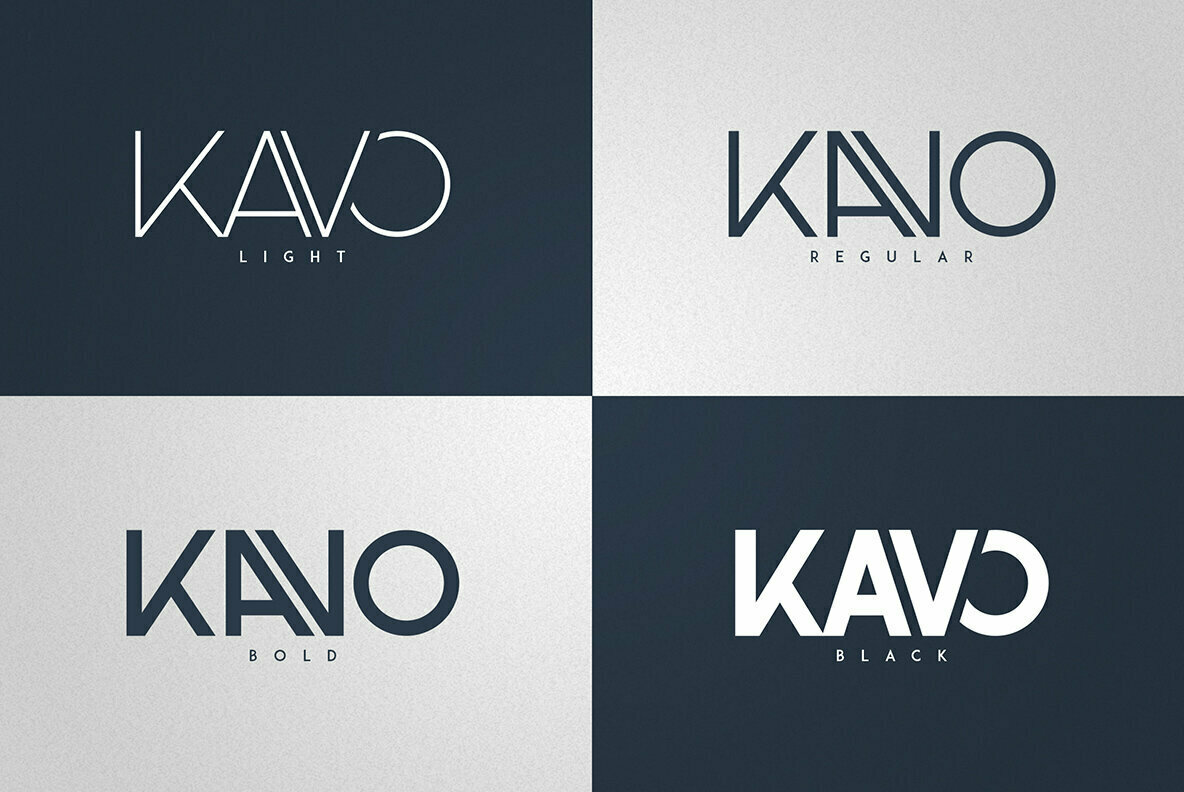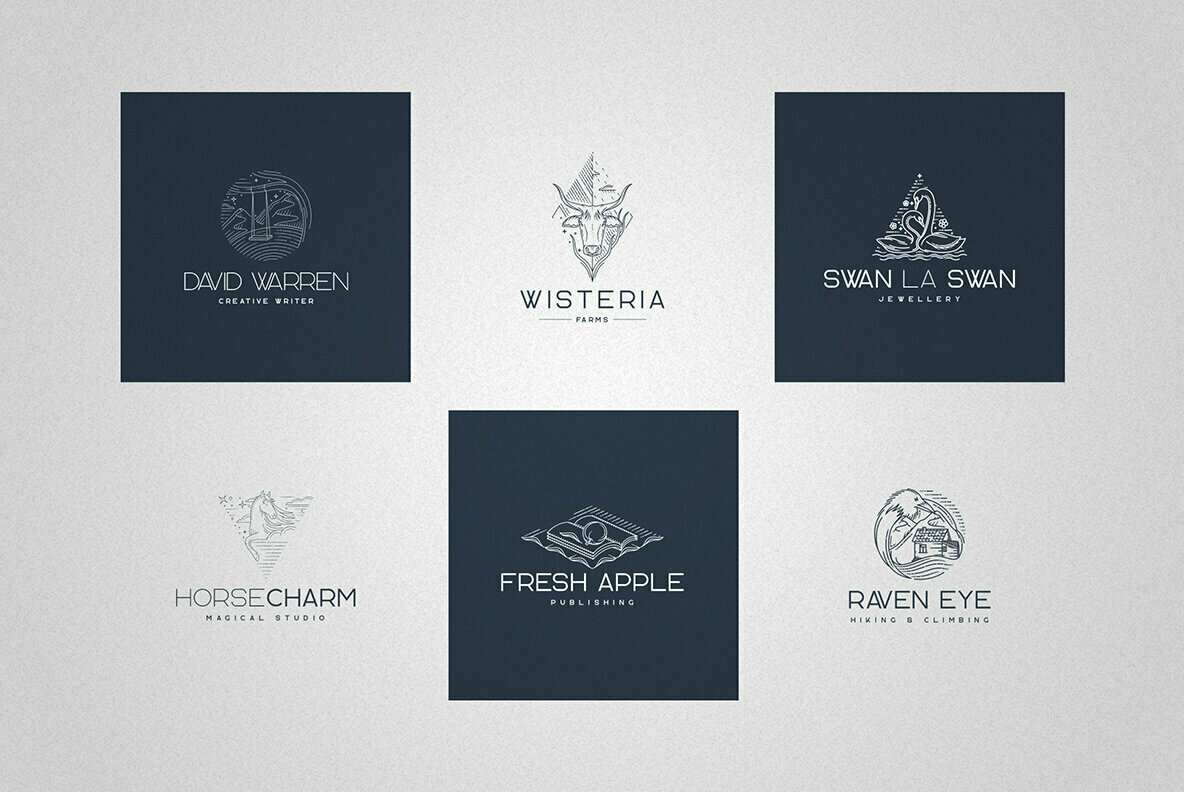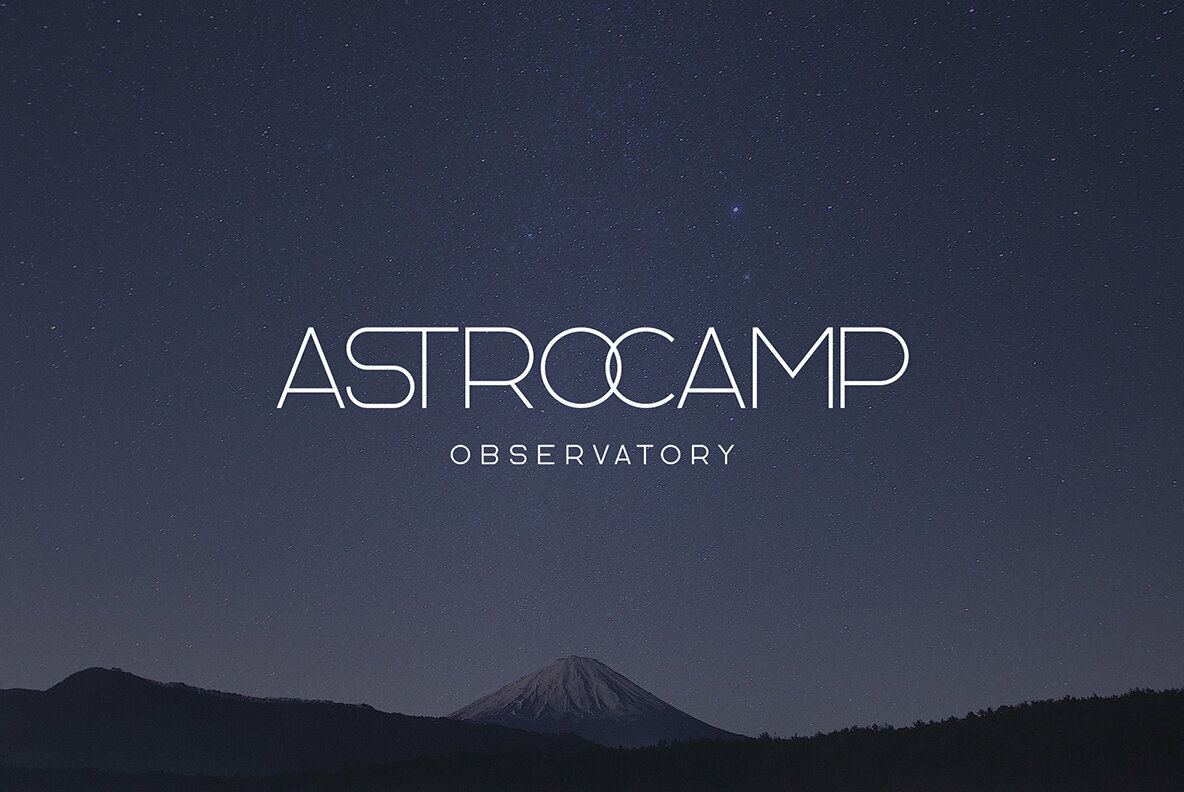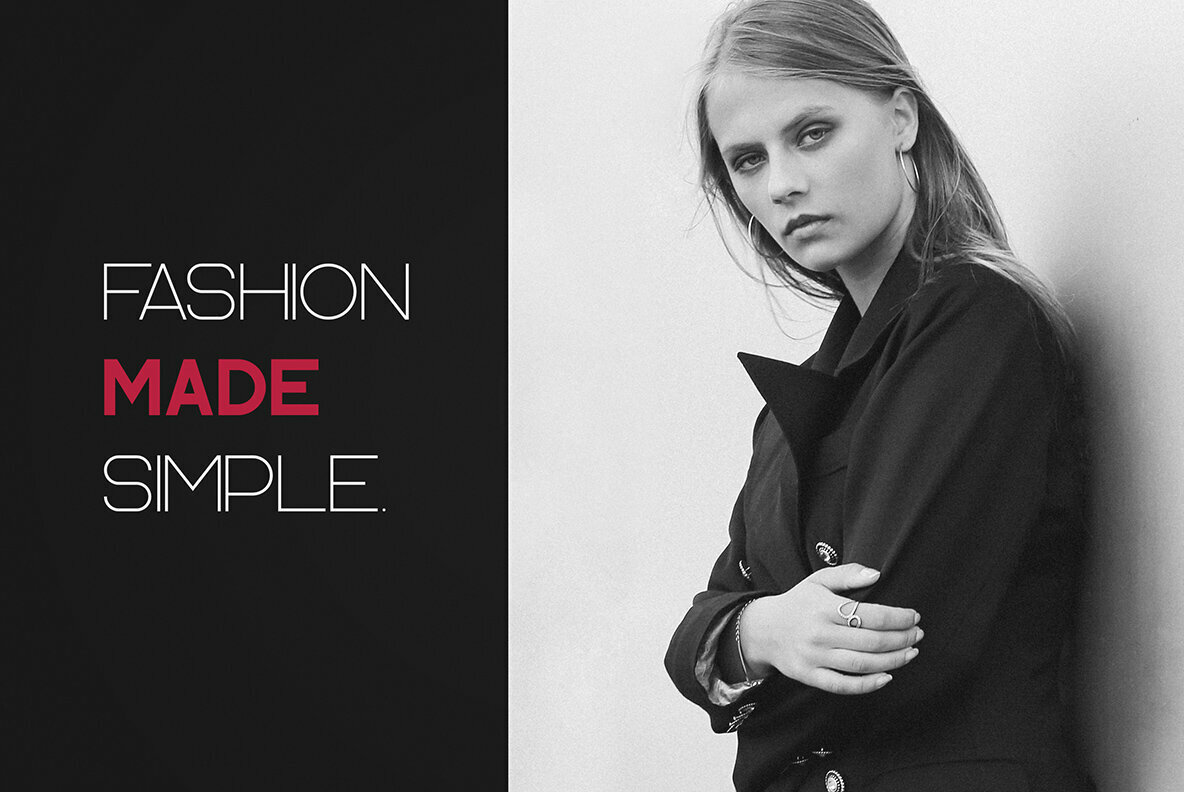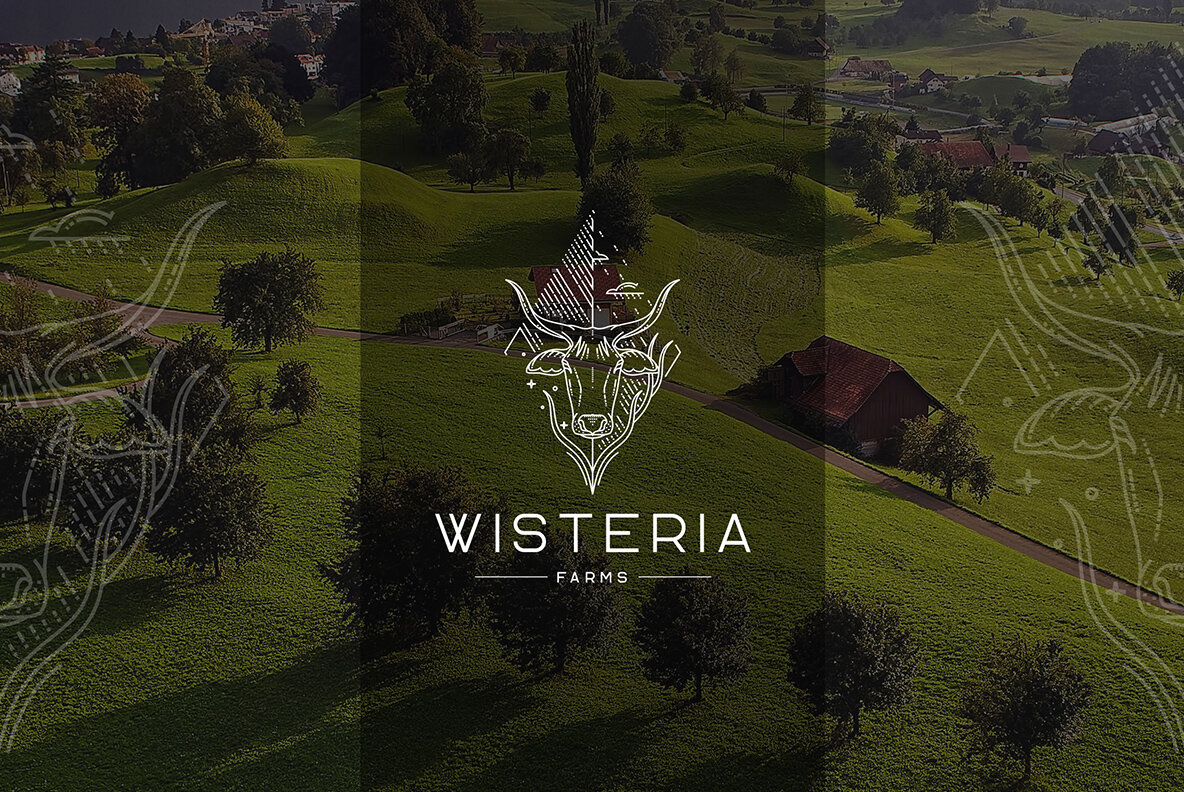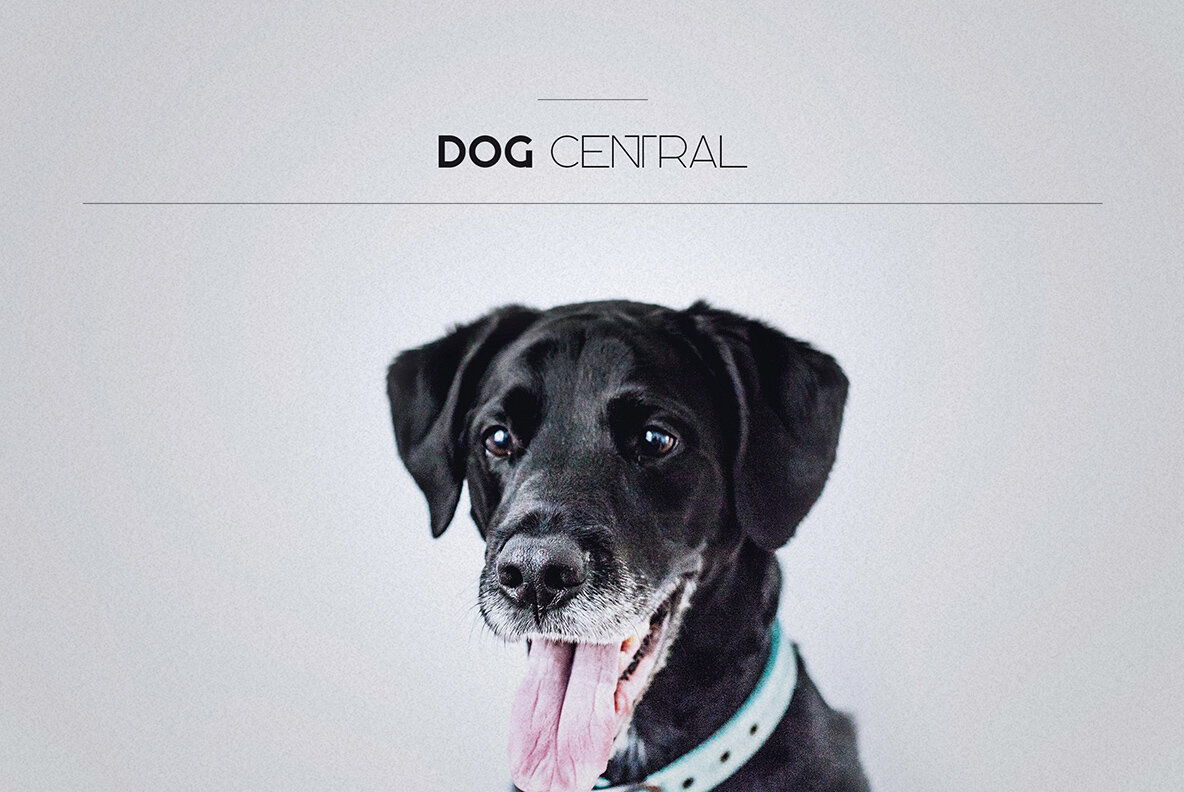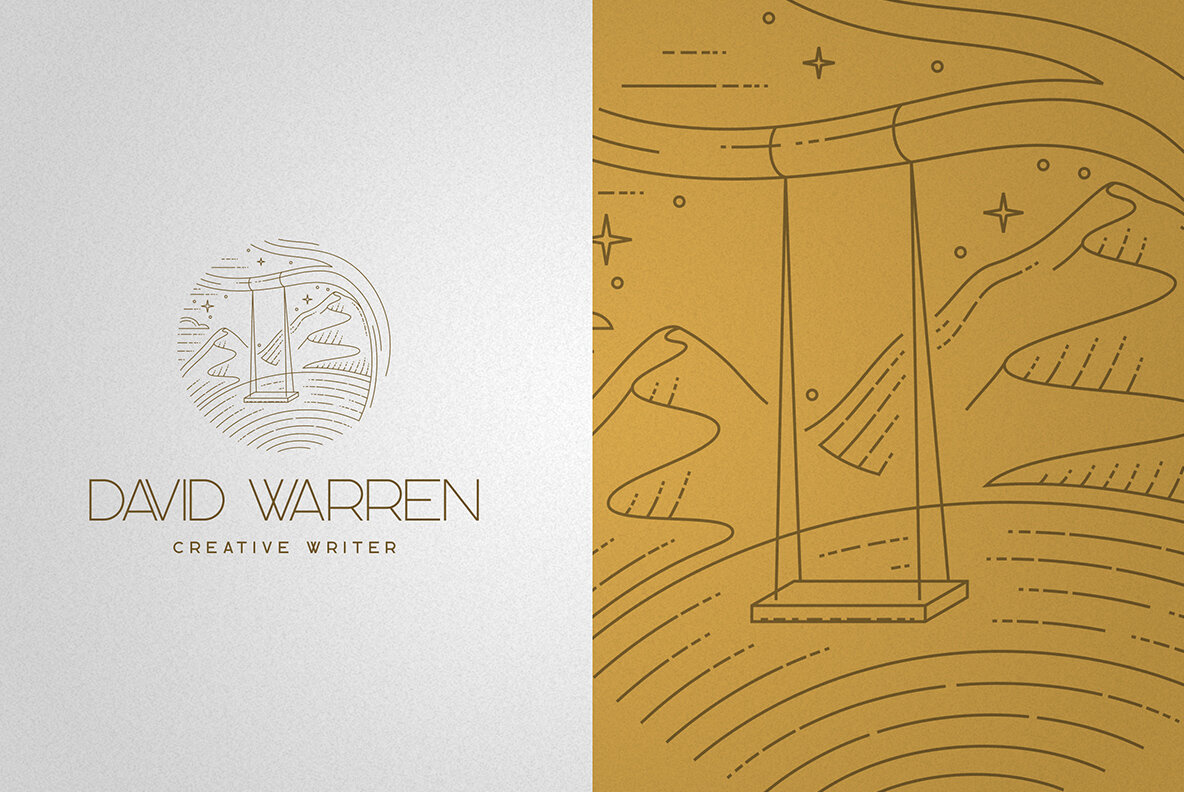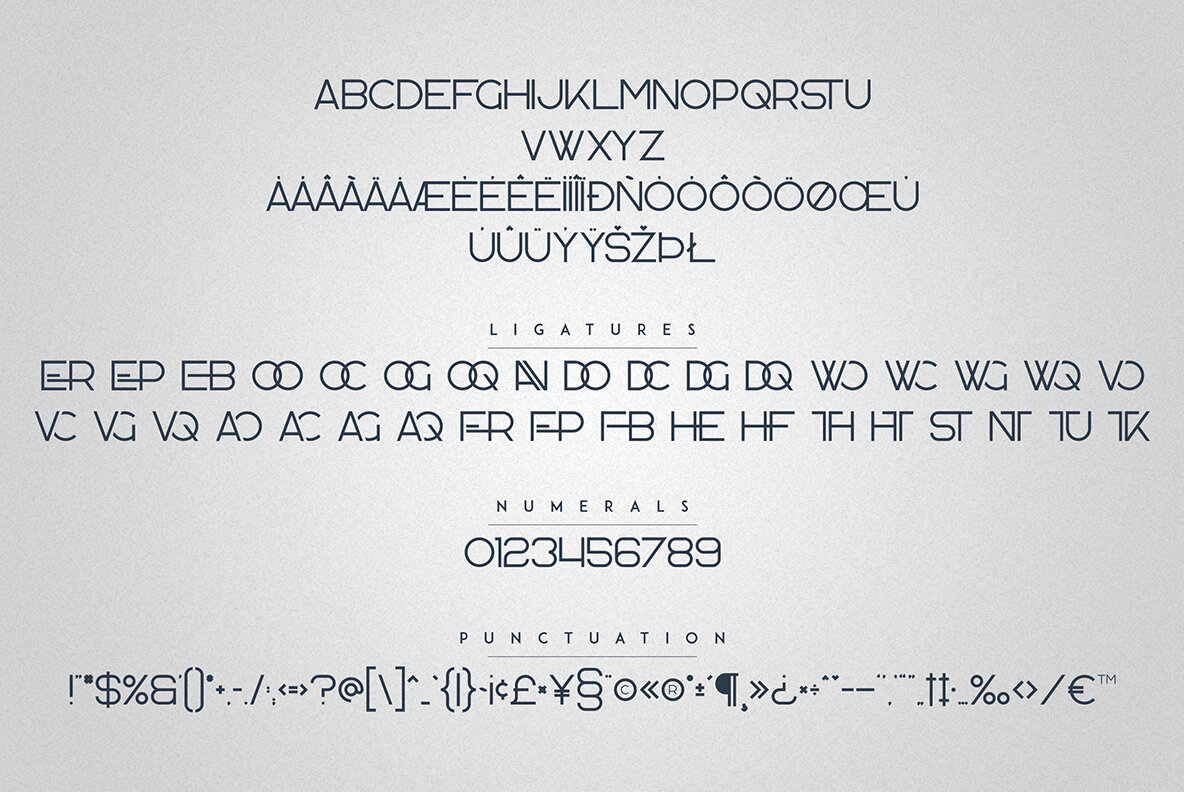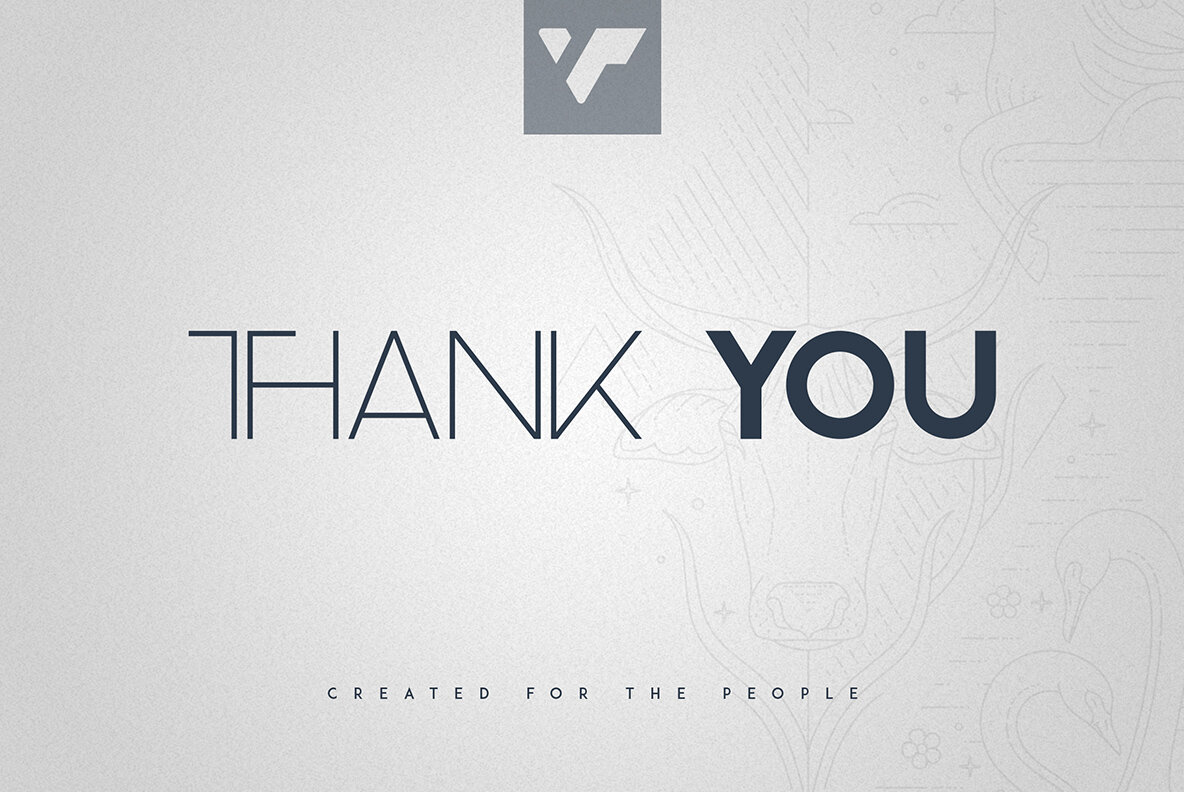
Kavo Font
The Kavo Sans Serif typeface by VP Creative Shop exemplifies a subtle blend of modernity and functionality, making it an ideal choice for designers and creative directors. Emphasizing clarity with four distinct weights, this font family offers a remarkable range of versatility, catering to a variety of design projects. Whether for large, bold headlines or nuanced, small captions, Kavo retains its sleek appearance across all banner sizes. This typeface is well-suited for diverse applications such as branding, product packaging, magazine headers, and more. Its clean lines and modern style also make it a sophisticated choice for stylish text overlays on any image background, with robust multilingual support enhancing its global appeal.Kavo Sans Serif: A Typeface of Cohesive Elegance
Tailored Design Features